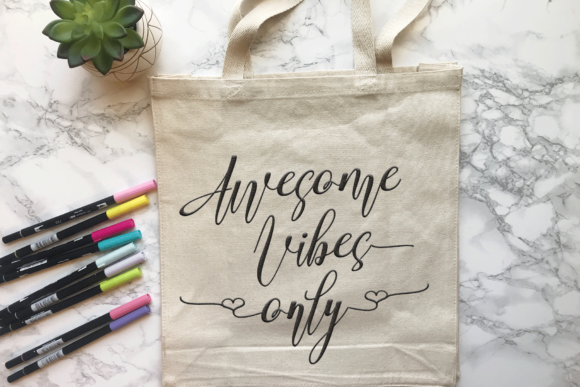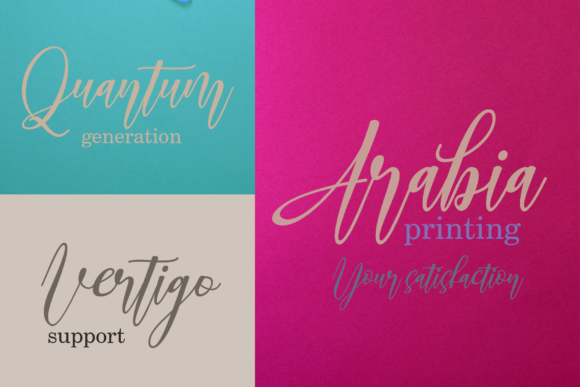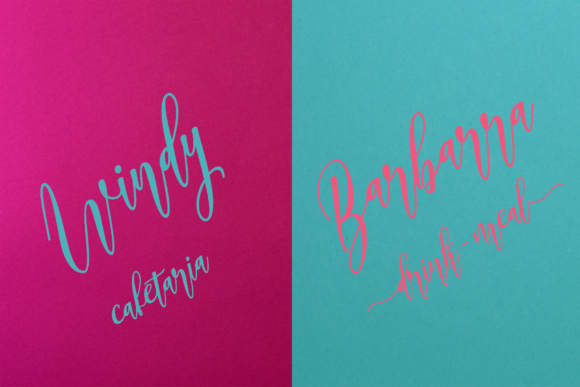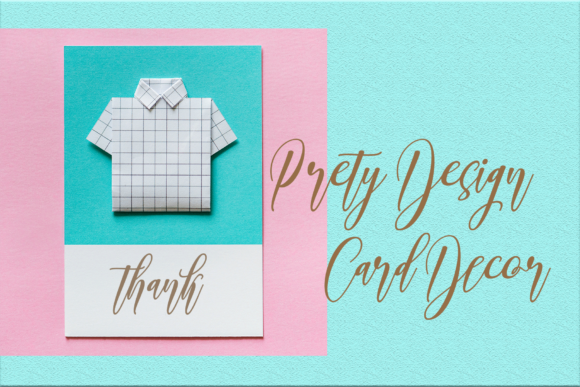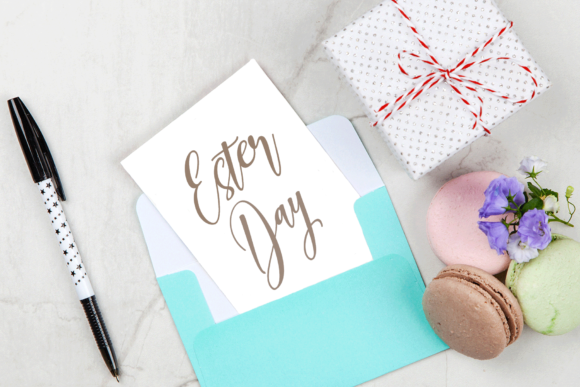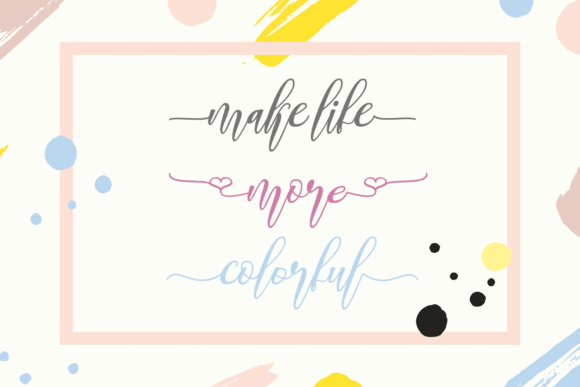
Cretella Font: Elevate Your Designs with Timeless Elegance and Authentic Calligraphy
In the world of typography, few fonts manage to strike a balance between classic sophistication and friendly approachability. Cretella Font is one such exceptional typeface that combines the best of both worlds, offering a magical handwritten aesthetic with a touch of elegance. Whether you’re a designer, crafter, or simply a typography enthusiast, Cretella is poised to become your go-to font for creating original and outstanding designs.
The Essence of Cretella Font
Cretella is more than just a font; it’s an experience. It embodies a beautiful fusion of timeless elegance and authentic calligraphy, making it perfect for projects that demand a high level of sophistication without losing warmth. This font features an incredibly classic style that instantly elevates any design, yet it retains a friendly feel that engages the audience. From wedding invitations and branding materials to packaging and digital content, Cretella brings a level of refinement and personality that is hard to achieve with standard fonts.
Key Features of Cretella Font
- PUA Encoding: Cretella Font is PUA (Private Use Area) encoded, which means accessing the array of cute glyphs and swashes is straightforward. This feature allows designers to explore a wide range of creative possibilities without needing extensive technical knowledge.
- Alternate Glyphs and Ligatures: One of the standout features of Cretella is its wealth of special features, including alternate glyphs and ligatures. These elements add depth and uniqueness to any design, enabling you to customize your projects to their fullest potential.
- Handwritten with Elegance: Cretella’s base is a carefully crafted handwritten style that exudes elegance. Its fluid strokes and balanced letterforms make it a versatile choice for a variety of design applications.
- Classic yet Friendly: The font strikes an impeccable balance between classic appeal and friendly demeanor. This duality makes Cretella suitable for both traditional and modern designs, ensuring your work stands out regardless of the context.
Applications of Cretella Font
Cretella’s versatility is one of its most compelling attributes. Here are some of the areas where this font truly shines:
- Wedding and Event Design: Create stunning wedding invitations, save-the-date cards, and event banners that set the tone for an elegant and memorable occasion.
- Branding and Logo Design: Use Cretella to craft unique and captivating brand identities that speak to sophistication and approachability.
- Packaging: Elevate product packaging with a touch of elegance and personality, making your products stand out on store shelves.
- Digital Content: Enhance blogs, social media posts, and website content with a distinctive typography that captures attention and fosters engagement.
Why Choose Cretella Font?
In a sea of fonts, Cretella stands out for several reasons:
- Uniqueness: With its distinctive blend of elegance and friendliness, Cretella offers a fresh alternative to more commonly used fonts.
- Versatility: Its adaptability across various design applications makes Cretella a valuable addition to any designer’s toolkit.
- Accessibility: PUA encoding and the inclusion of special features like alternate glyphs and ligatures ensure that Cretella is both accessible and highly customizable.
Cretella Font is a remarkable addition to the world of typography, offering designers and crafters a unique tool to elevate their work. Its perfect blend of timeless elegance and authentic calligraphy, combined with its friendly feel and versatile nature, makes it an ideal choice for a wide range of design projects. Whether you’re looking to add a touch of sophistication to your branding, create memorable event designs, or simply explore new typographic possibilities, Cretella is sure to inspire and enhance your creative endeavors.
Discover the magic of Cretella Font and unlock a new level of design excellence. With its enchanting aesthetic and practical features, Cretella is not just a font but a key to unlocking your full creative potential.